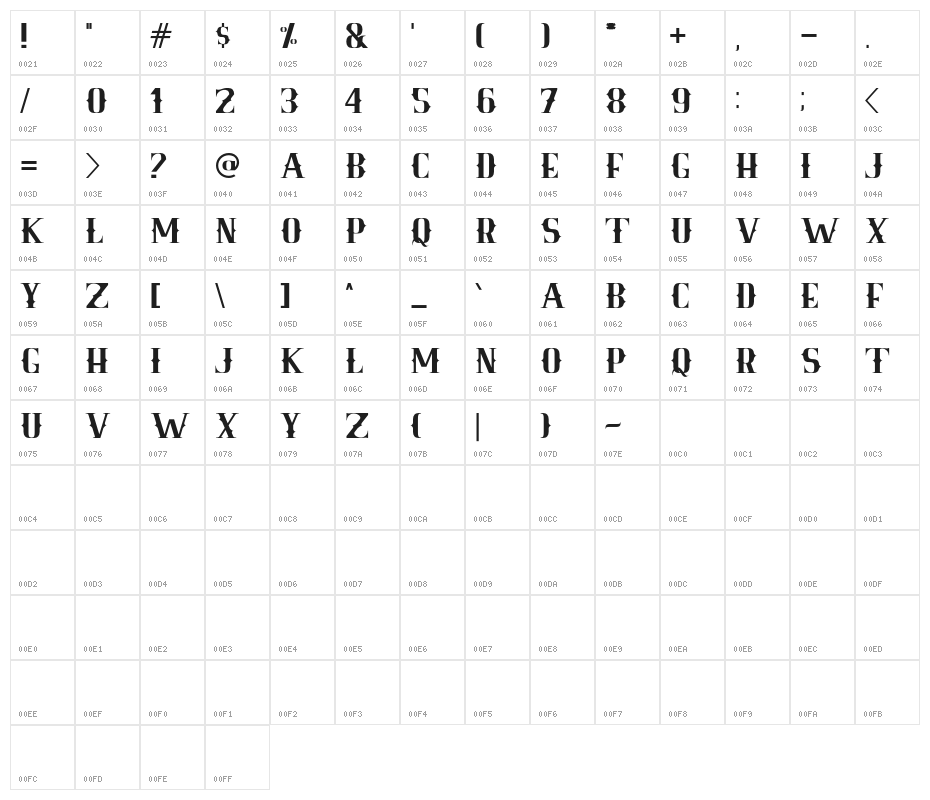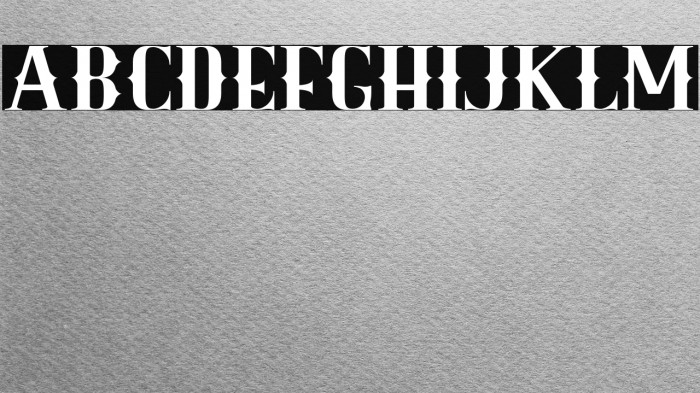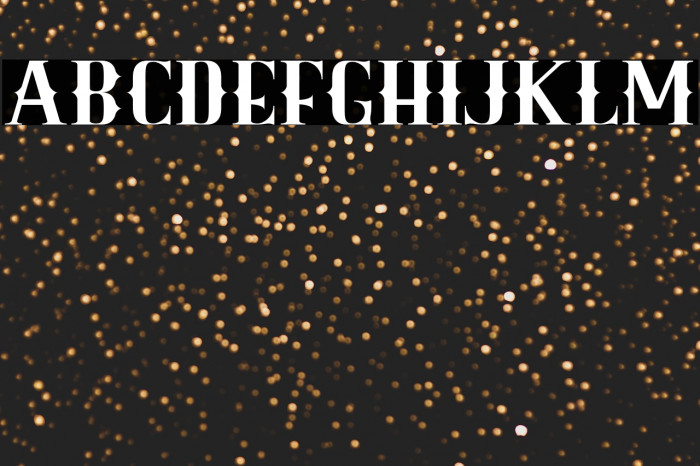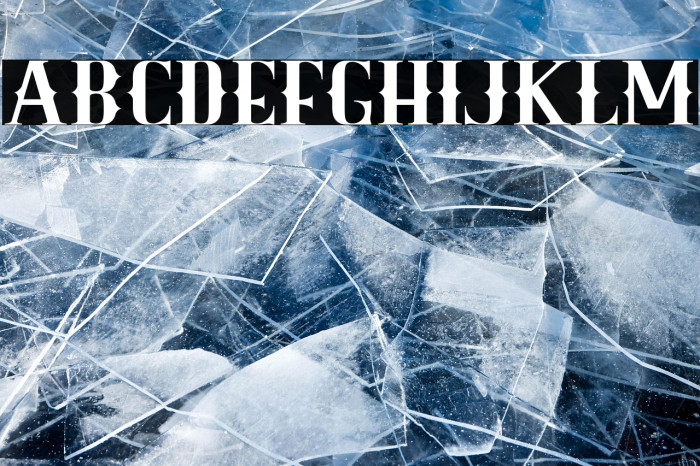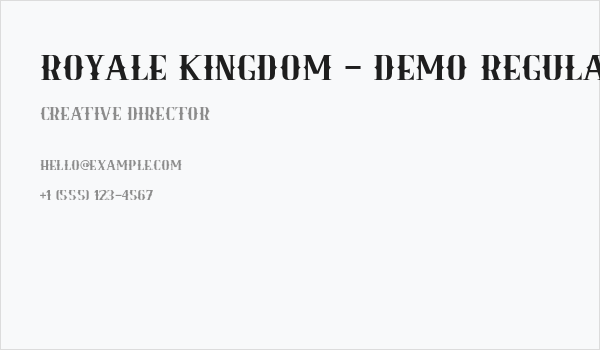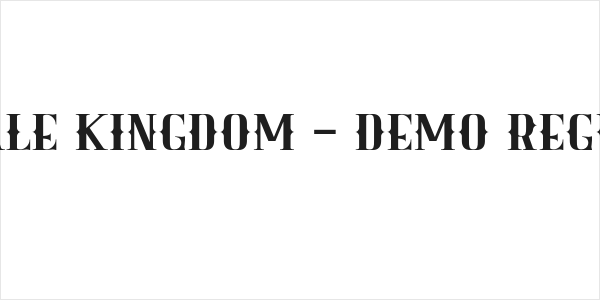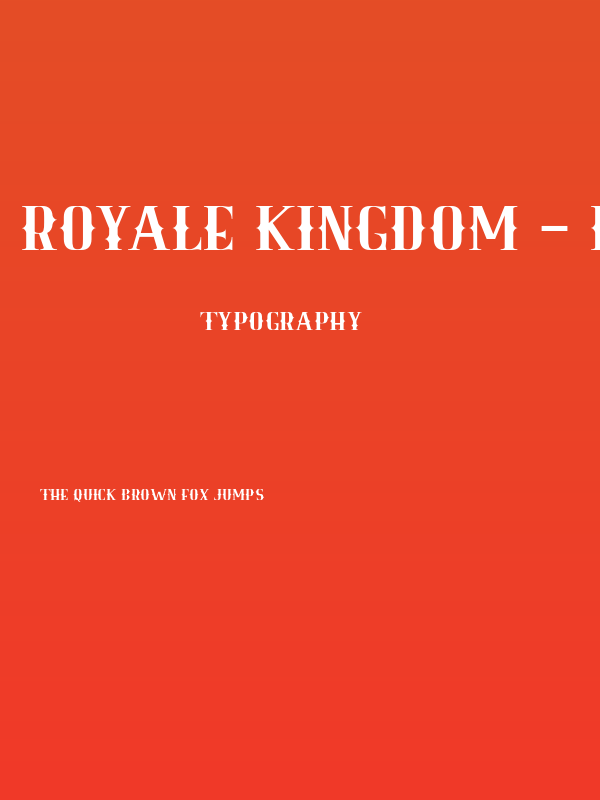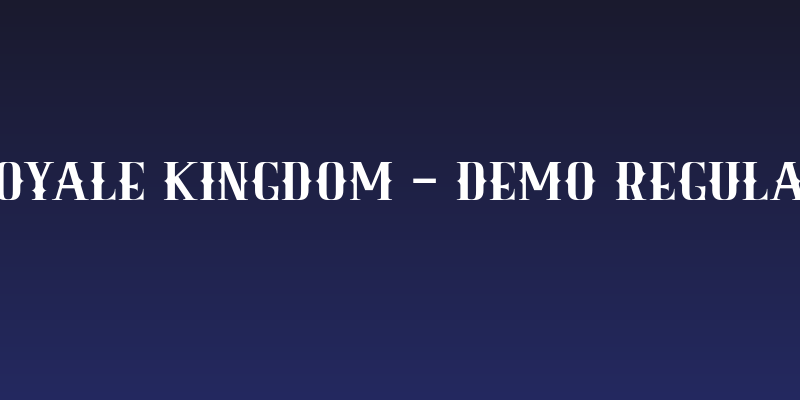
Royale Kingdom - DEMO Regular Font
This font features a bold and striking design with sharp, angular serifs and a strong presence. The uppercase letters are particularly prominent, with a distinctive cut-out style that adds a unique flair. The numbers and special characters maintain this bold aesthetic, making them stand out. The overall style is reminiscent of vintage or medieval typography, with a modern twist that makes it suitable for contemporary use. The font's high contrast between thick and thin strokes enhances its readability and visual impact, making it ideal for attention-grabbing headlines or logos.
| Proposed Projects | Ideal for branding projects, posters, book covers, and any design requiring a bold, vintage touch. |